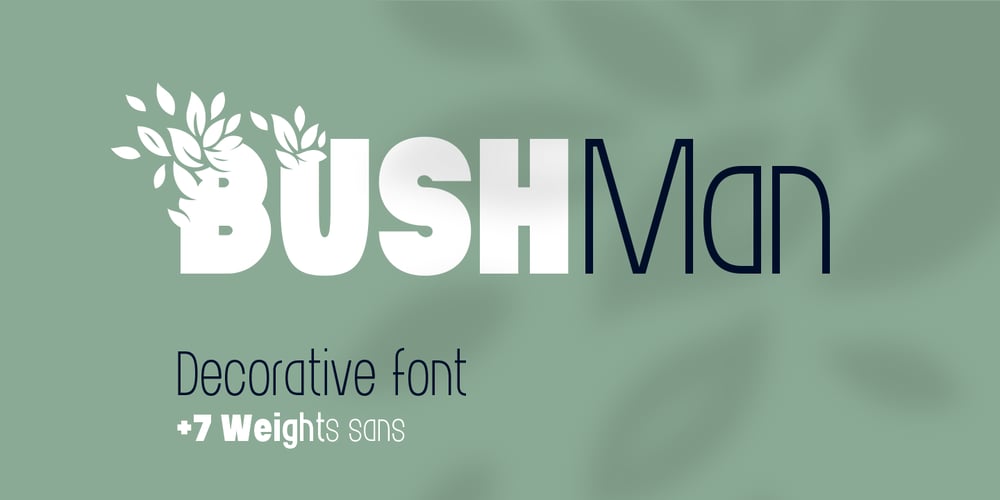
Bushman
Bushman font
Bushman Font Family was designed by Gleb Guralnyk and published by Gleb Guralnyk. Bushman contains 8 styles and family package options. Bushman a font with capitals and decorative foliage letters. It works pretty simply – just type a word as usual with first capital letter, and it will automatically make the first two letters with growing leaves.The second big part of this set is a supporting font Bushman Sans. It’s a modern grotesque font with 7 weight variations. Basically this font is supposed to support a main decorative theme with some smaller text.Thank you and have a nice day